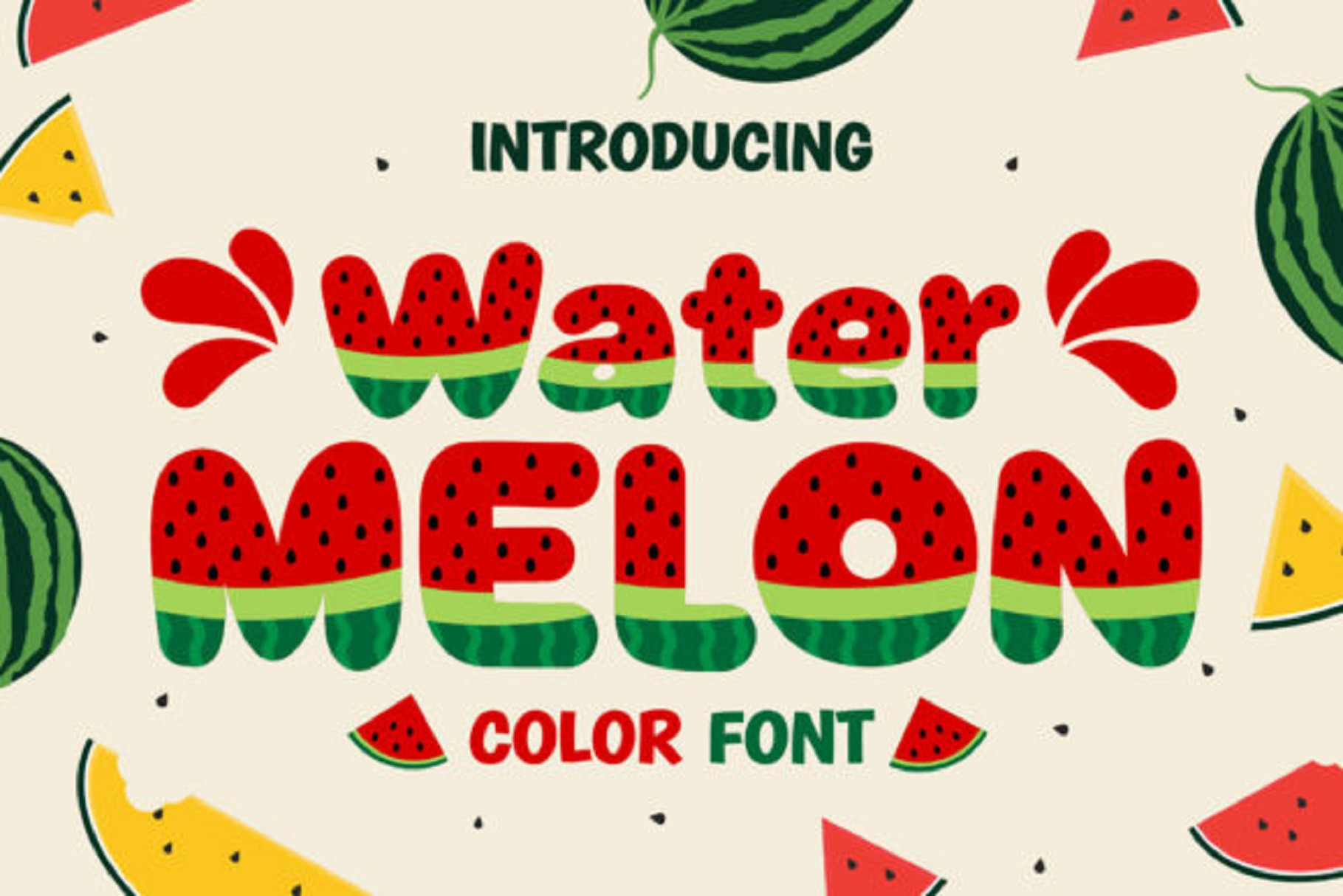
Watermelon Font
Watermelon is a color font designed in the style of fruit. Makes you miss the bright summer. Fall in love with its authentic feel and use it to create gorgeous invitations, beautiful stationary art, eye-catching social media posts, and cute greeting cards. Add this beautiful display font to each of your creative ideas, and notice how it makes them stand out.